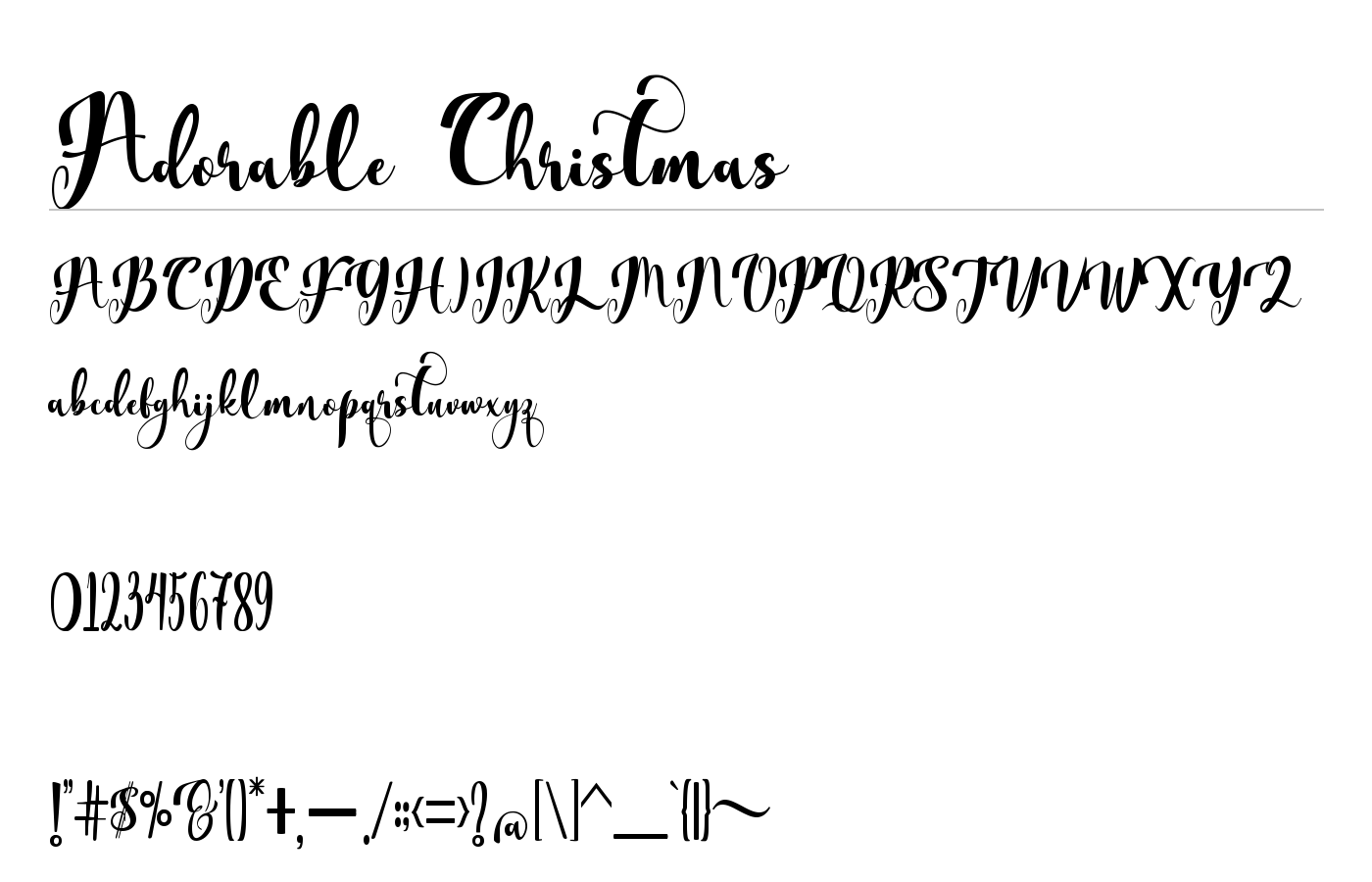
Adorable Christmas is a charming script font with elegant, flowing strokes that evoke a festive and whimsical feel. Its smooth curves and decorative swashes create a playful yet refined style, making it perfect for holiday-themed designs, invitations, and packaging that seek a warm, joyful, and handcrafted touch. This font works best in headlines and decorative text where its unique personality can shine.
Adorable Christmas Font
About Adorable Christmas Font
| Font family | Adorable Christmas Font |
| Designer | Mengulirpena 2020 (Deny Dwi Kurniawan) |